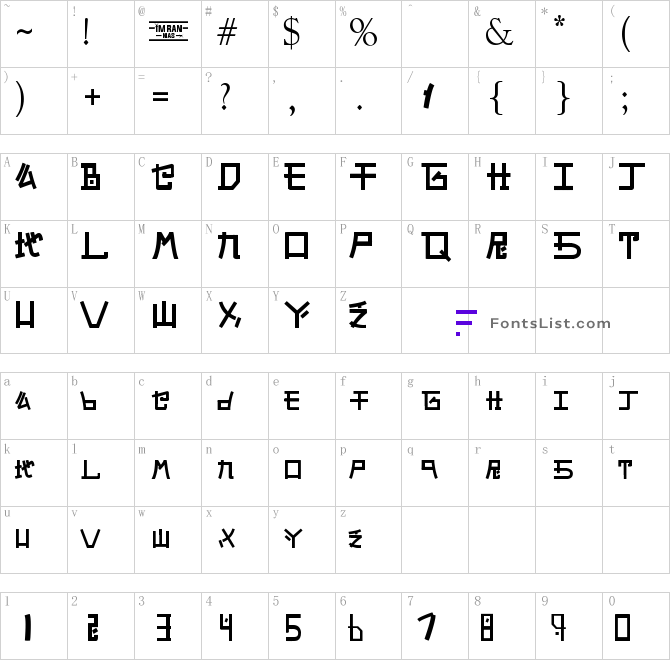
- Font Name:Alphabet SNK by PMPEPS
Alphabet-SNK-by-PMPEPS.ttf is a very beautiful artistic font, Alphabet-SNK-by-PMPEPS.ttf is widely used in the design and printing of various books and pictures,Alphabet-SNK-by-PMPEPS.ttf has a strong visual impact,Alphabet-SNK-by-PMPEPS.ttf is a commonly used font in newspapers, magazines and books, and is used in posters, e-commerce Poster design, store design, logo design, font design and other fields.Alphabet-SNK-by-PMPEPS.